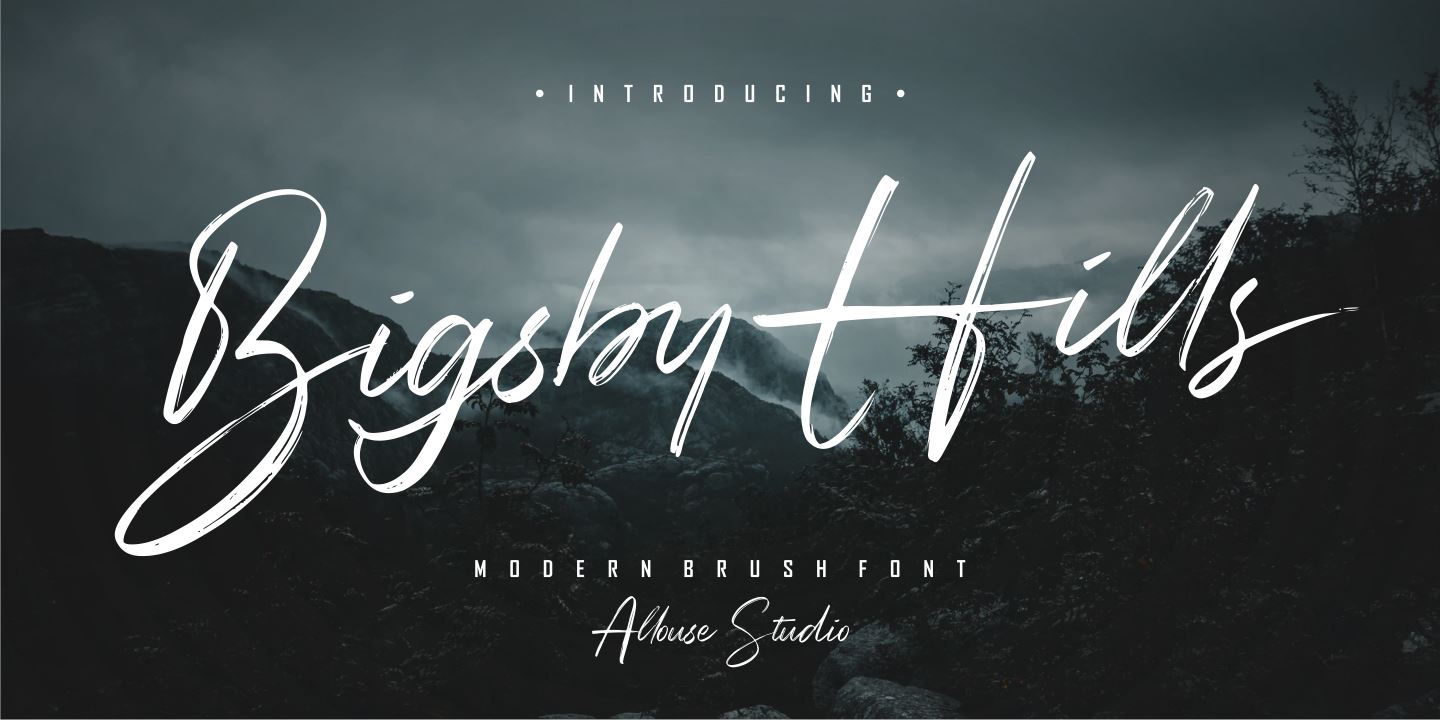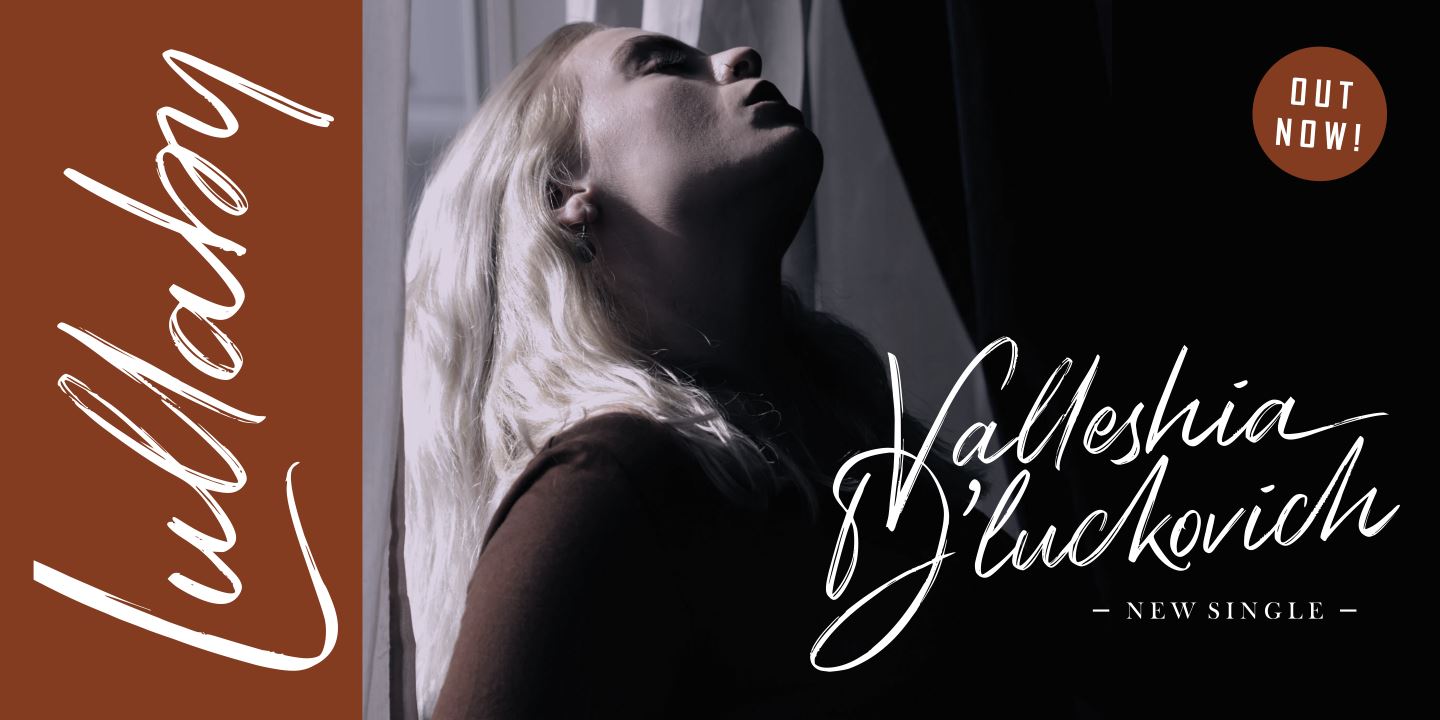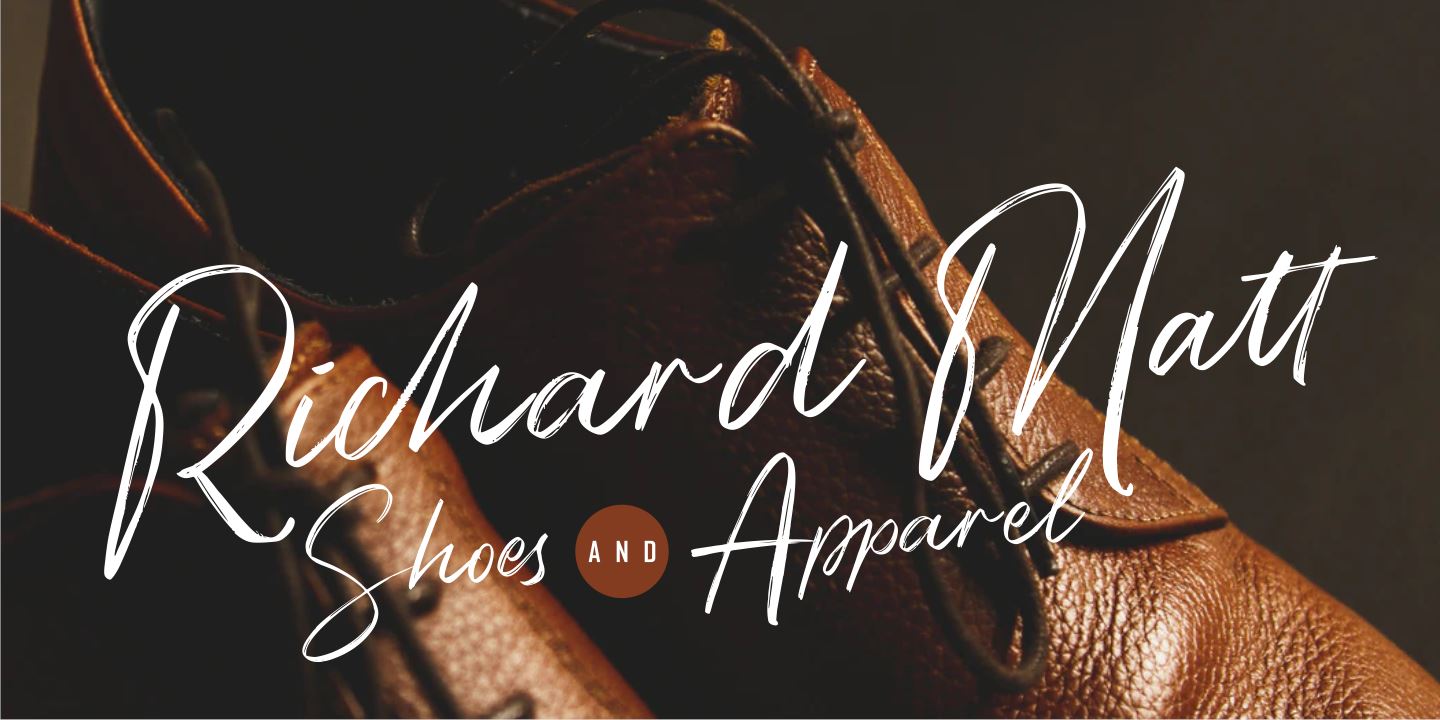
About Bigsby Hills
Proudly Presenting, Bigsby Hills a Modern Brush Font. Bigsby Hills is perfect for any titles, logo, product packaging, branding project, megazine, social media, wedding, or just used to express words above the background. Bigsby Hills come with many ligatures, ending swash, stylistic alternates for g, j, y, and also Multi-Lingual Support. We highly recommend using a program that supports OpenType features and Glyphs panels like many of Adobe apps and Corel Draw, so you can see and access all Glyph variations. Enjoy the font, feel free to comment or feedback, send me PM or email.